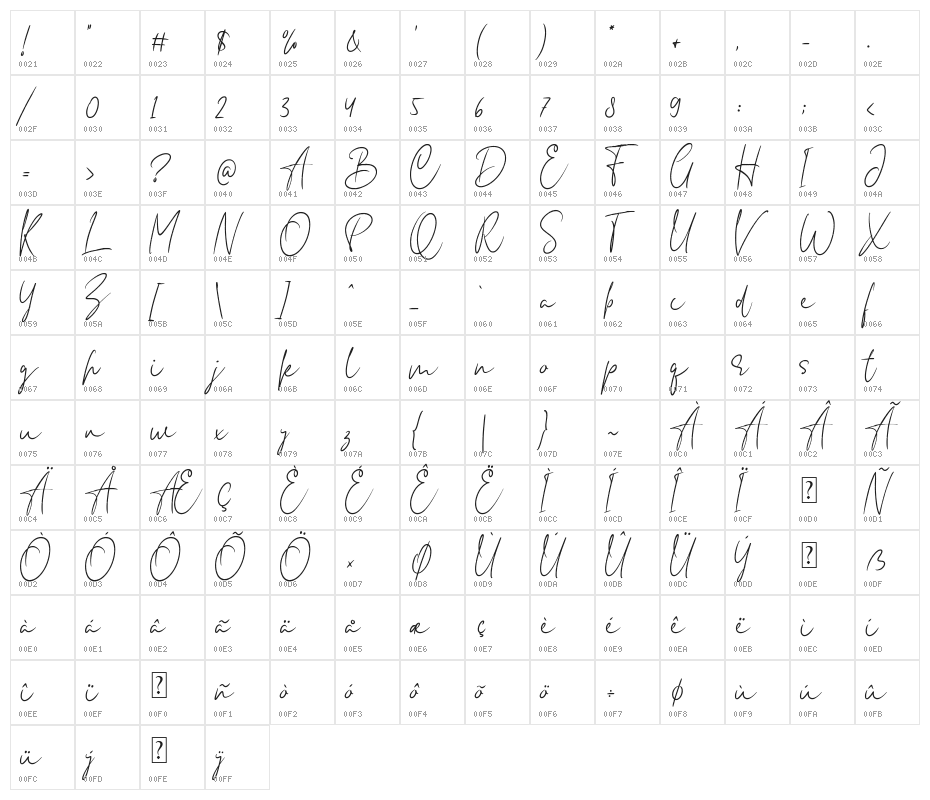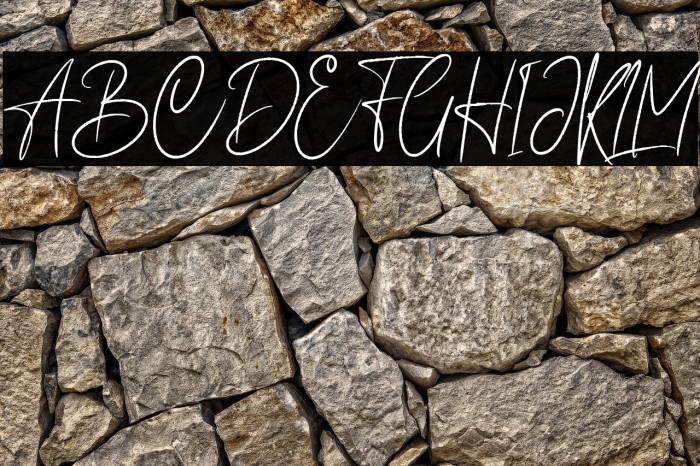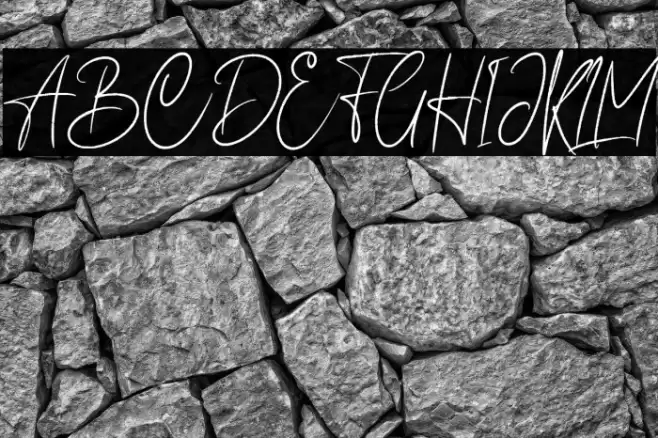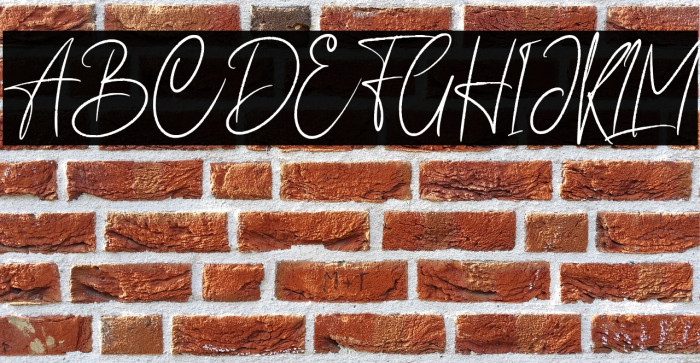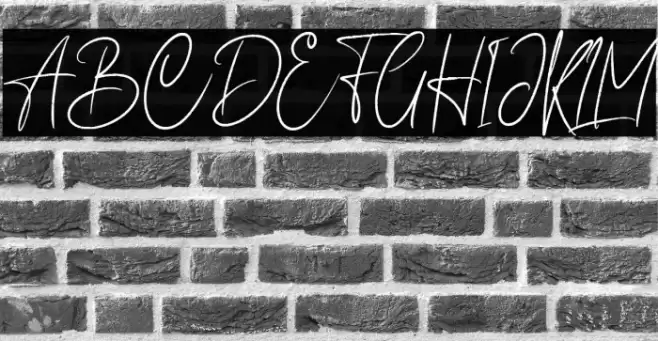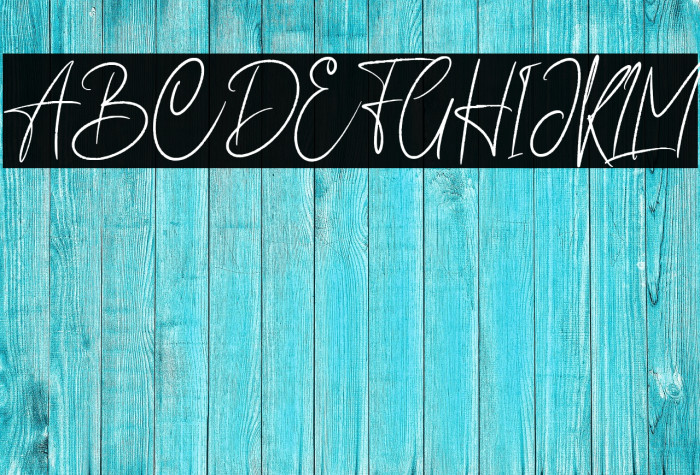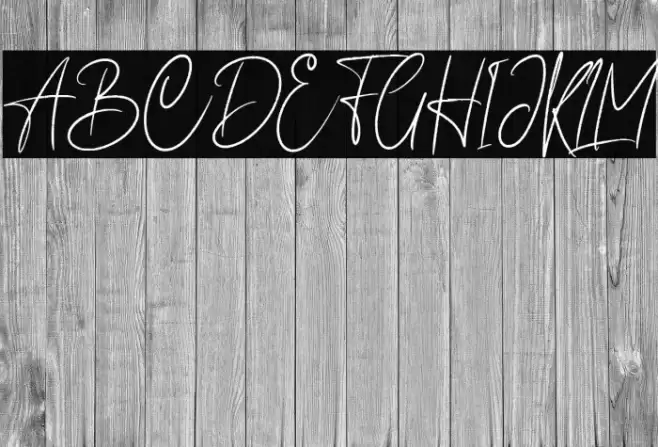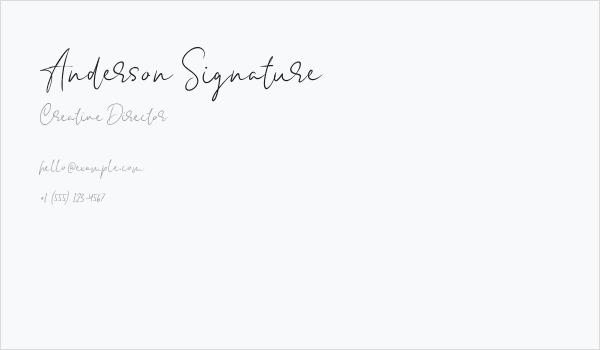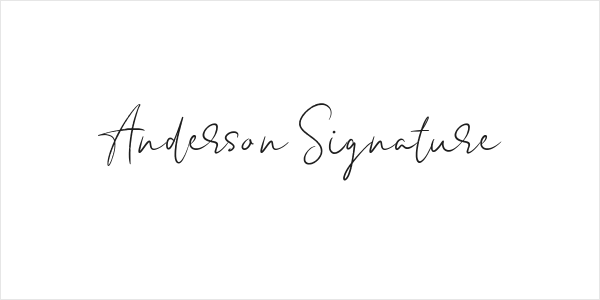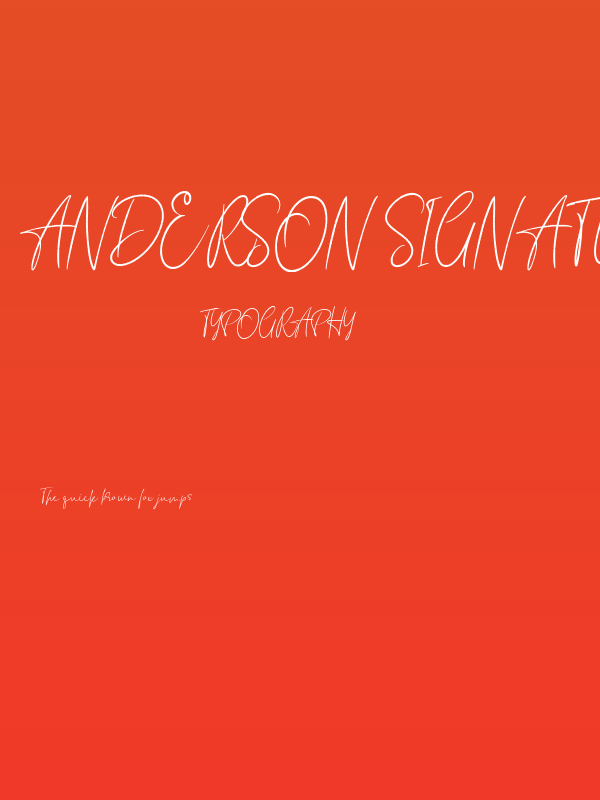
Anderson Signature Font
Anderson Signature Description
This font features a flowing, cursive style that mimics the fluidity of handwriting. The uppercase letters are tall and elegant, with sweeping lines and loops that give them a sophisticated appearance. The lowercase letters maintain a consistent slant, enhancing the handwritten feel. Numbers are clear and legible, with a slight slant that matches the overall style. Special characters are integrated seamlessly, maintaining the font's cohesive look. The strokes vary in thickness, adding a dynamic and lively touch to the text.
| Proposed Projects | Ideal for personal branding, invitations, greeting cards, and artistic projects that require a personal touch. |